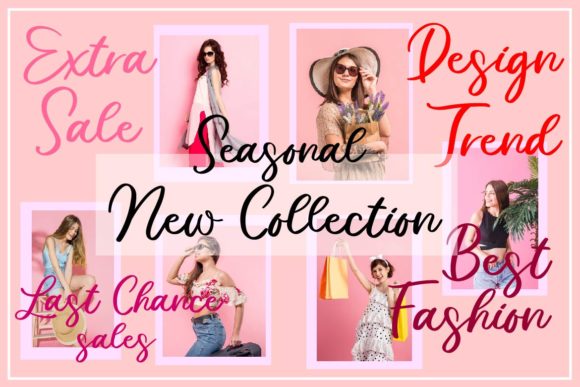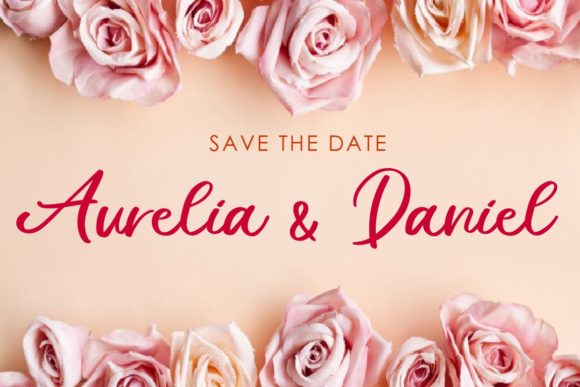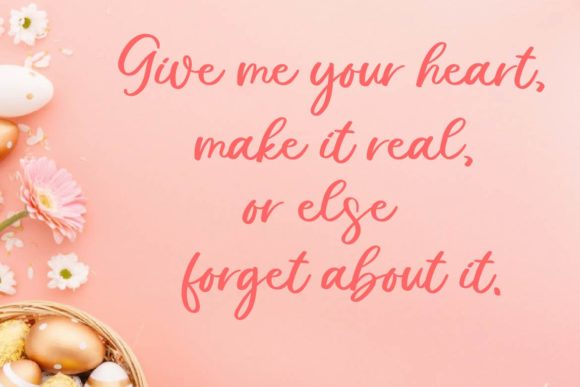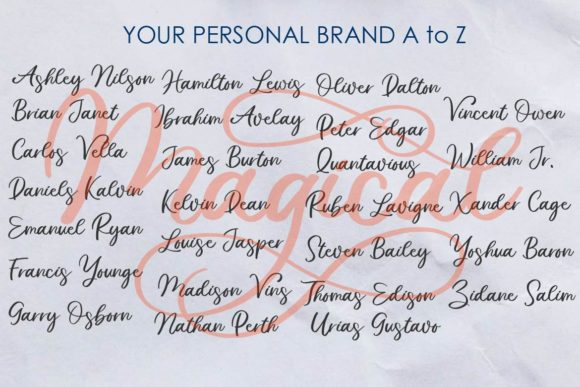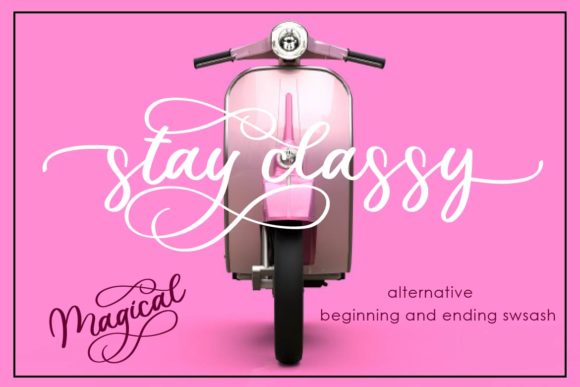
Magical Font
About Magical Font
Magical is a cute and playful handwritten script, full of personality and curves. This font was designed using quick strokes to create a natural handwritten style.
This font is suitable for logos, watermarks on photography, signatures, quotes, wedding designs, album covers, business cards, clothing, magazines, posters, and more!